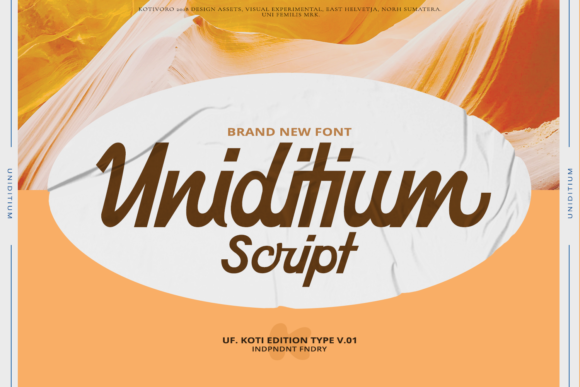
Unleash the captivating allure of handwritten elegance with Uniditium, a script font that weaves a tapestry of sophistication and allure. Let your words dance with the graceful curves and delicate strokes of Uniditium, transforming ordinary text into a masterpiece of artistry.
With Uniditium, your designs will exude an air of timeless charm. Its versatile nature lends itself effortlessly to an array of creations, from heartfelt wedding invitations to heartfelt thank you cards. Each letter is meticulously crafted to evoke the warmth and intimacy of a handwritten note, adding a personal touch to every project.
Whether you're designing logos that exude professionalism or business cards that leave a lasting impression, Uniditium empowers you to create a visual impact that captivates and inspires. Its elegant script will elevate your designs to new heights, imbuing them with a touch of sophistication that will make them stand out from the crowd.
Indulge in the beauty of Uniditium today and unlock a world of creative possibilities. Let your imagination soar as you craft designs that resonate with emotion and leave an unforgettable mark on all who behold them.